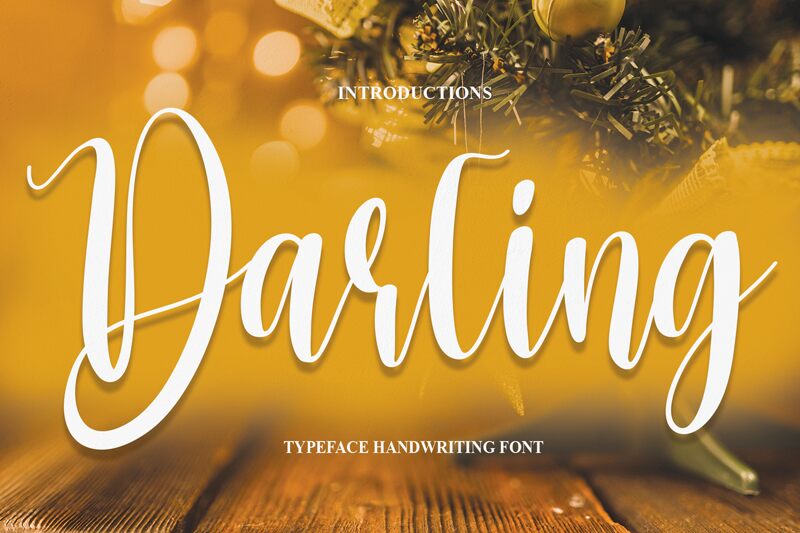
Darling
Darling, the whimsical font designed by scratchones, brings a touch of playfulness to any project. With its cute handwritten style and semi-light weight, Darling is perfect for designs that require a soft touch, from greeting cards to children's books. Its semi-condensed width allows for more text on a page without sacrificing legibility. Whether used for branding or personal projects, Darling adds a charming and approachable aesthetic that is sure to delight audiences of all ages. Let your creativity run wild with this delightful typeface!
the latest style letters are perfect for wall displays, wedding invitations, social media post logos,
advertisements, product packaging, product designs, labels, photography, watermarks, invitations, stationery,
and any project that requires taste handwriting.
the latest style letters are perfect for wall displays, wedding invitations, social media post logos,
advertisements, product packaging, product designs, labels, photography, watermarks, invitations, stationery,
and any project that requires taste handwriting.